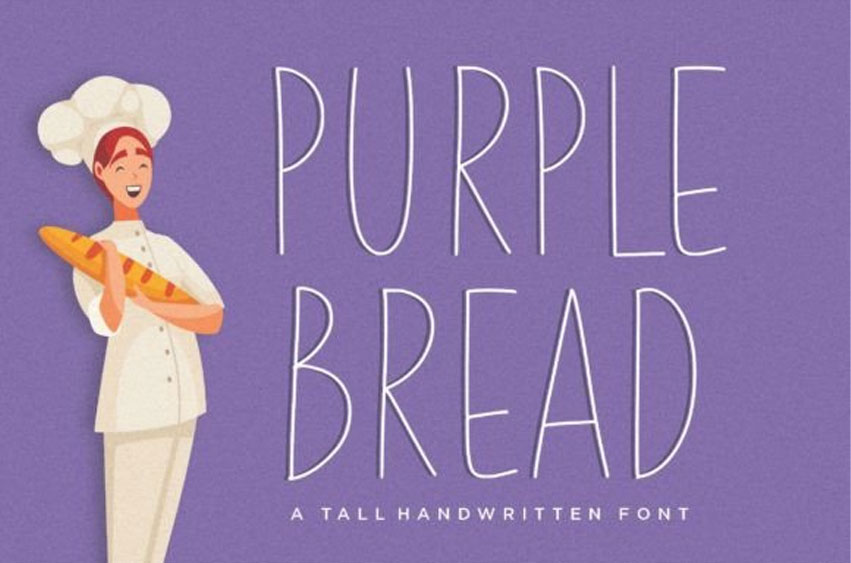
Purple Bread Font is a thin and tall handwritten font.
No matter the topic, this font will be an incredible asset to your font library, as it has the potential to elevate any creation.